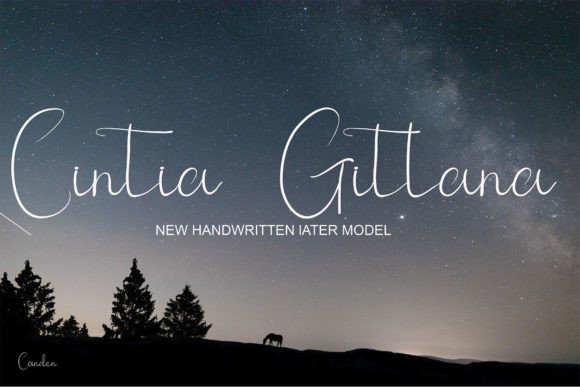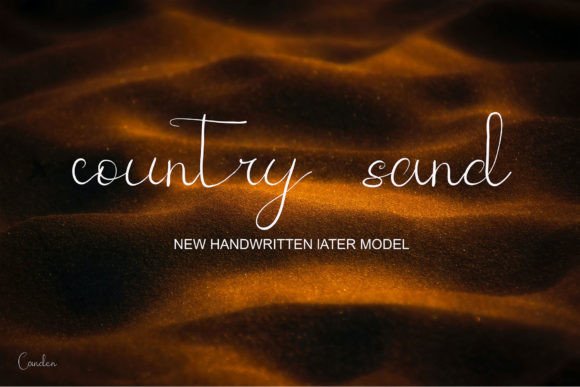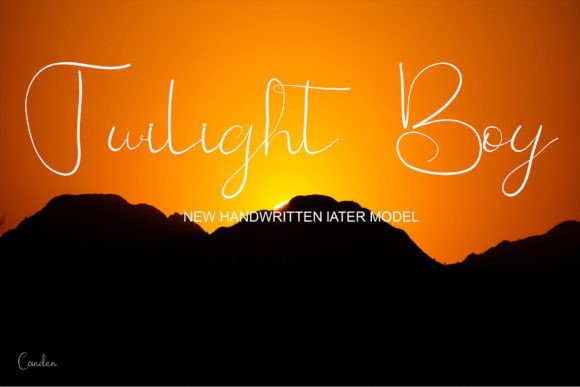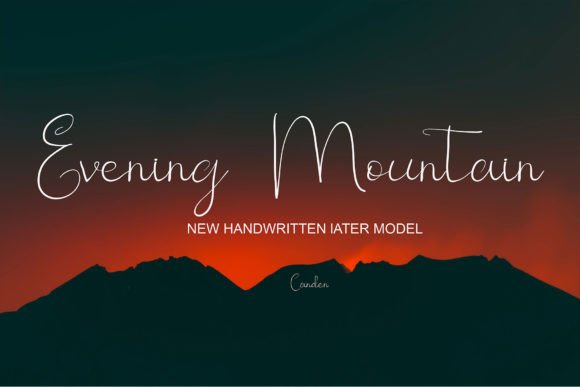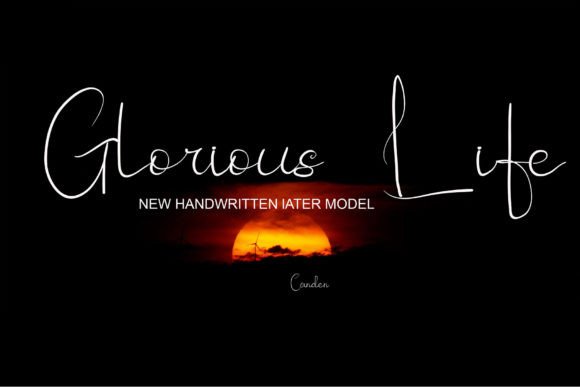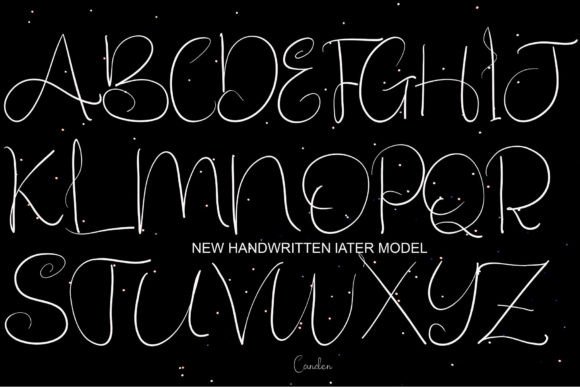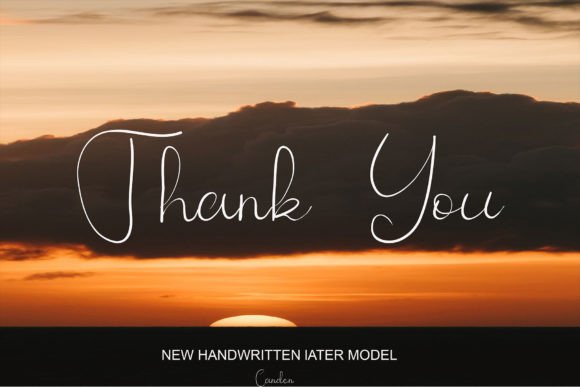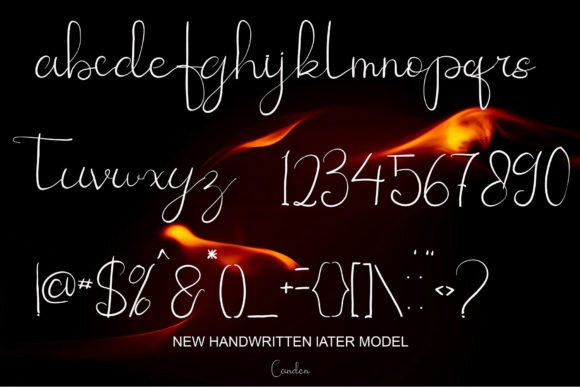
Cintia Gitlana Font
About Cintia Gitlana Font
Cintia Gitlana is a font born from the artistic precision of hand lettering, meticulously crafted using a pen tablet. Designed to cater to a broad spectrum of applications, this font seamlessly integrates into websites, advertising materials, product ads, and various other promotional contexts. Despite its apparent simplicity, Cintia Gitlana maintains an inherent coolness and stylishness that adds a touch of sophistication to any project.
The hand-drawn quality of Cintia Gitlana, executed with the precision of a pen tablet, infuses the font with a distinctive character. This personal touch, often lacking in more mechanical fonts, enhances its adaptability for digital platforms, providing a warm and authentic feel to web pages and digital content.
In the dynamic landscape of advertising, Cintia Gitlana shines as a versatile choice. Its simplicity becomes an asset, ensuring clarity and legibility in conveying messages, while its cool and stylish design elevates the overall visual appeal. This makes it particularly suitable for a wide range of product ads across diverse industries.
Cintia Gitlana’s simplicity is key to its elegance. Whether used in websites or advertisements, its unassuming aesthetic complements various design concepts, allowing the content or product to take center stage. This versatility is a hallmark of its design, making it well-suited for both bold and understated visual presentations.
In the realm of digital communication, Cintia Gitlana strikes a balance between modernity and approachability. Its cool and stylish demeanor adds a contemporary edge without sacrificing readability, making it an effective choice for conveying messages on various digital platforms.
In summary, Cintia Gitlana is not just a font; it’s a testament to the artistry of hand lettering in the digital age. Its simplicity, combined with cool and stylish elements, positions it as a valuable tool for designers seeking a font that seamlessly integrates into diverse visual contexts while adding a touch of sophistication and authenticity.